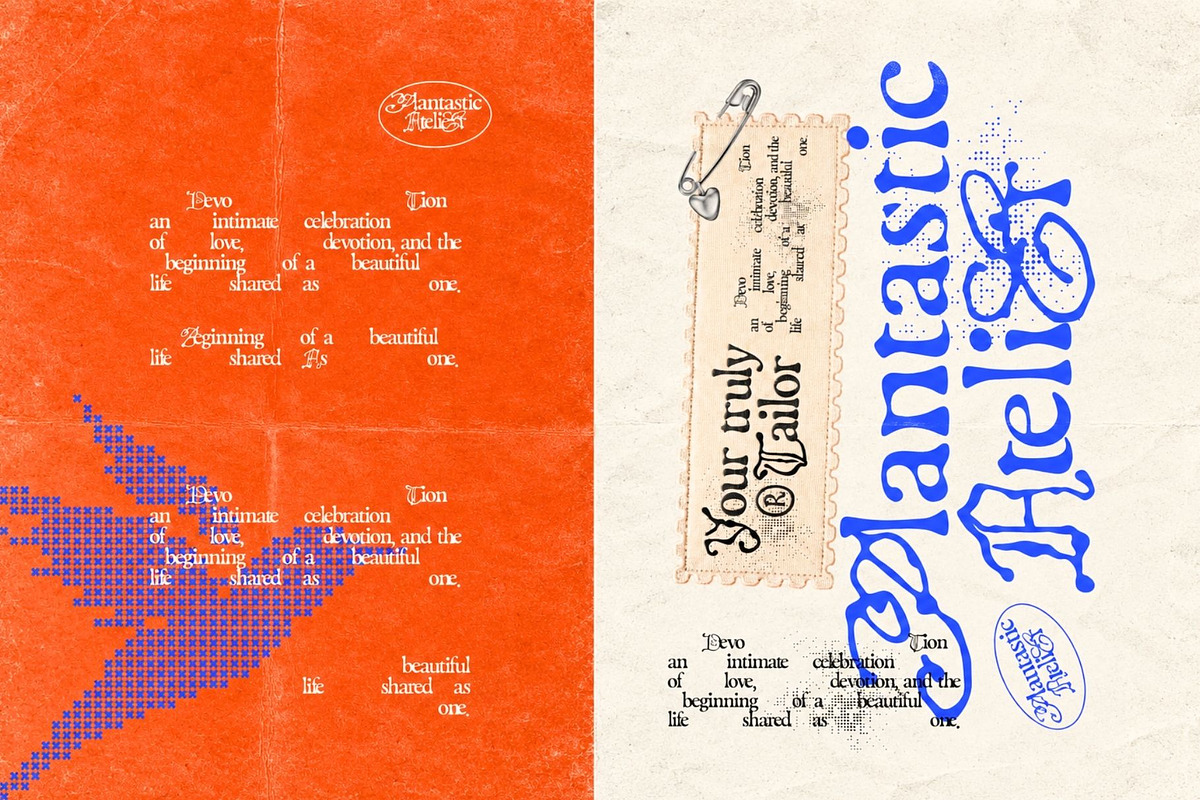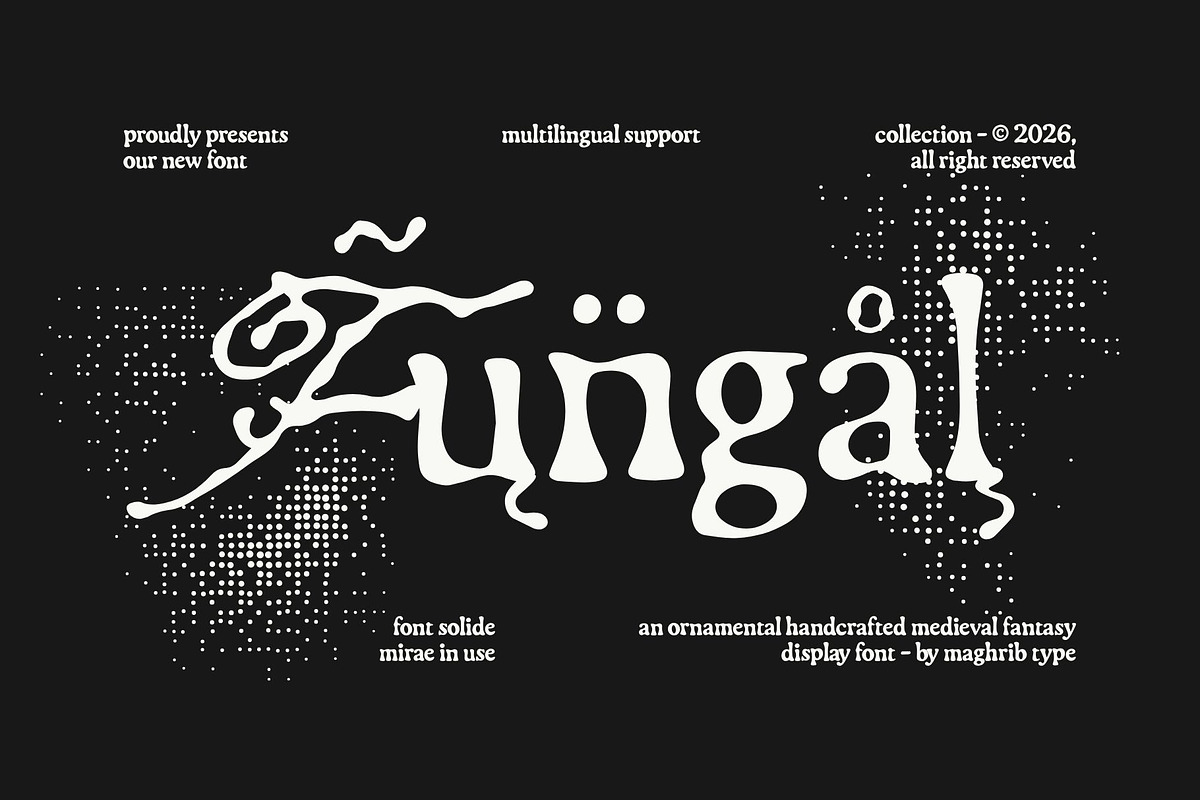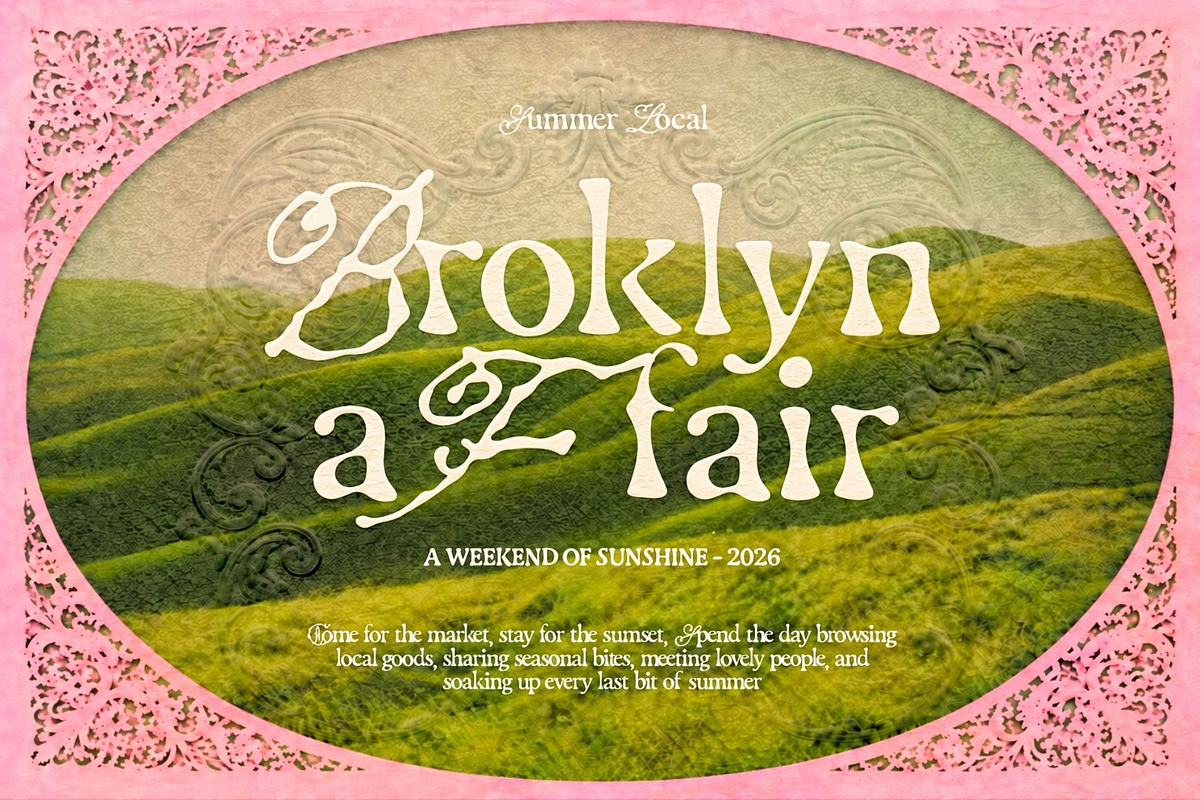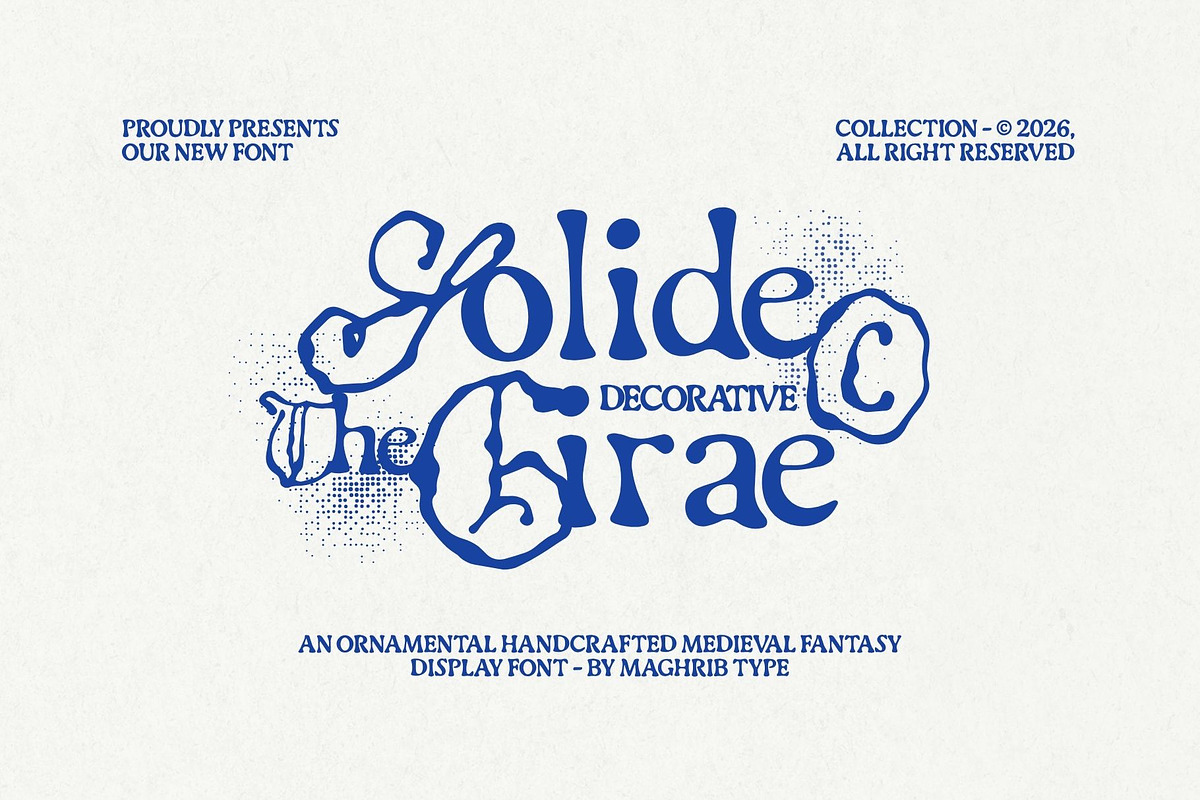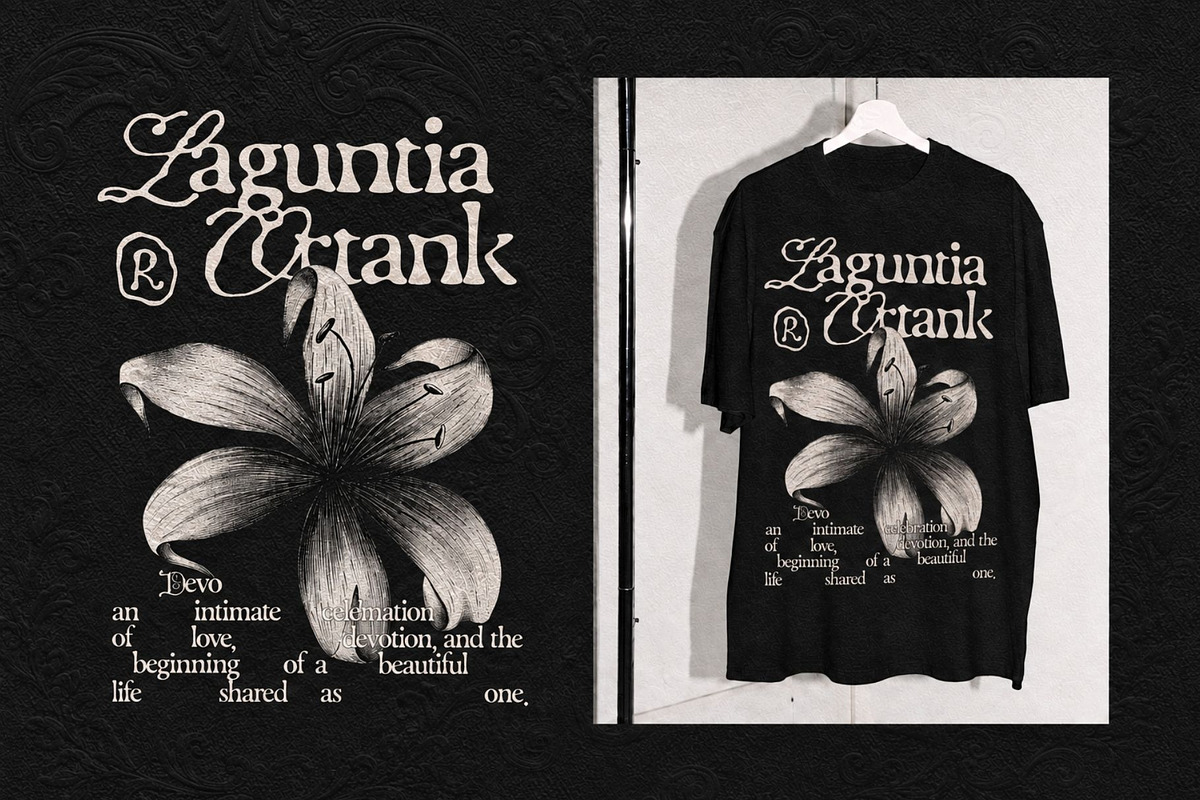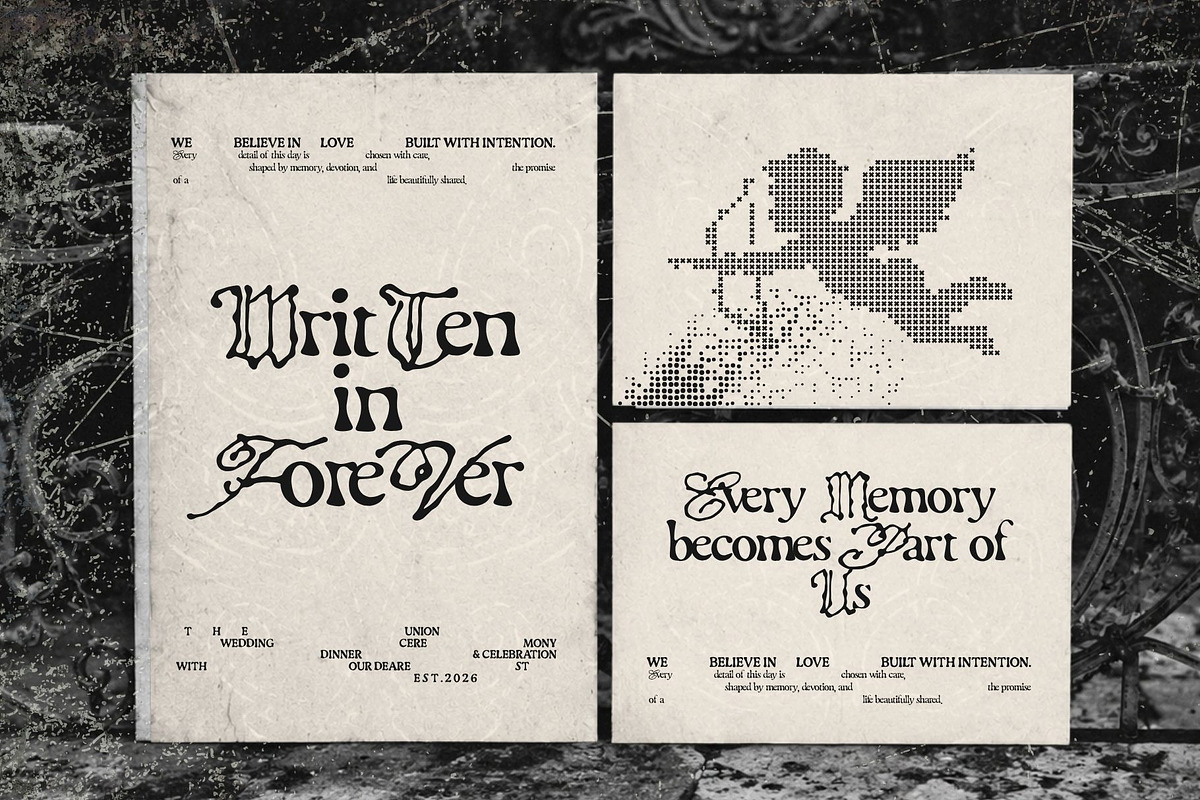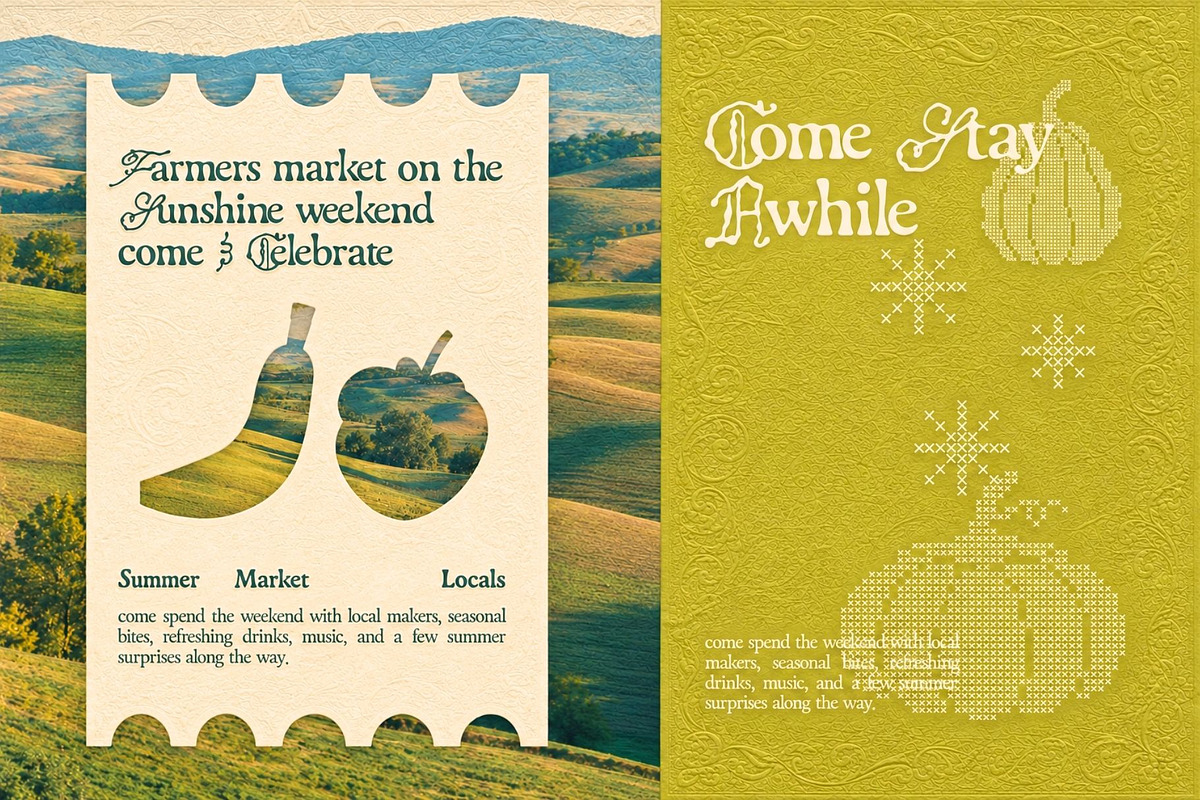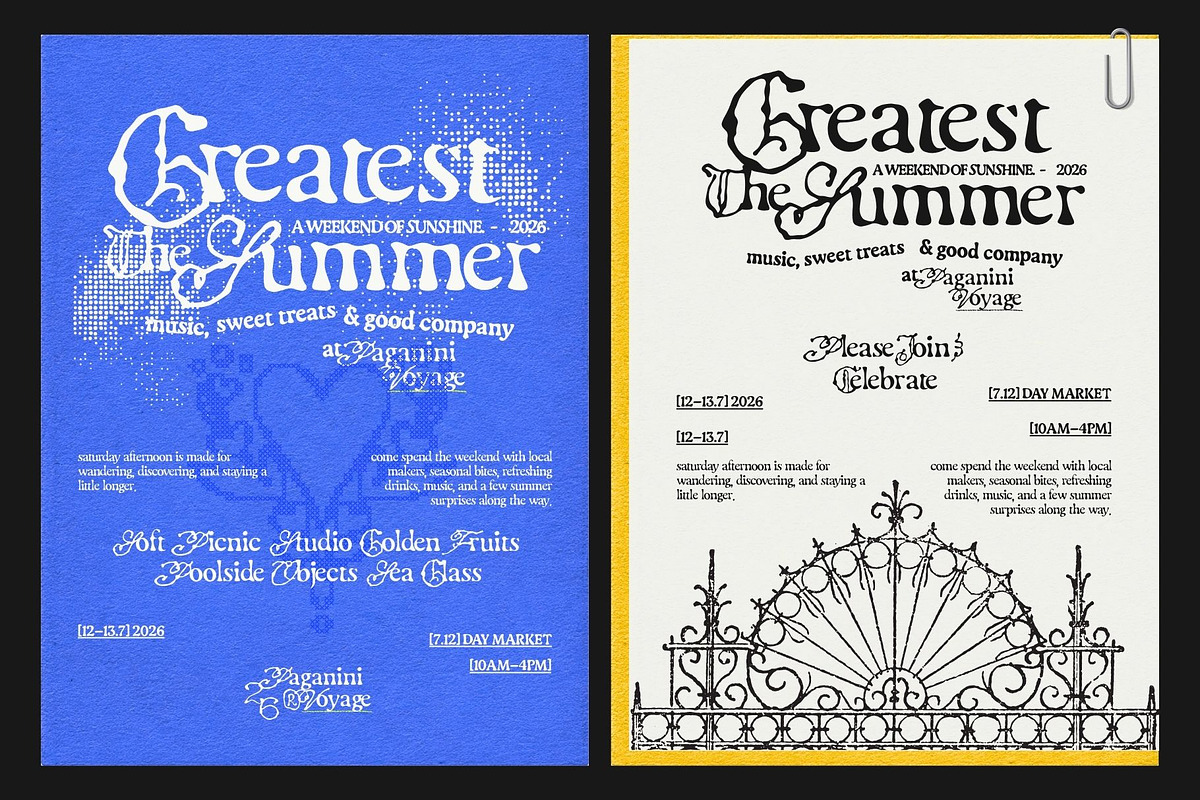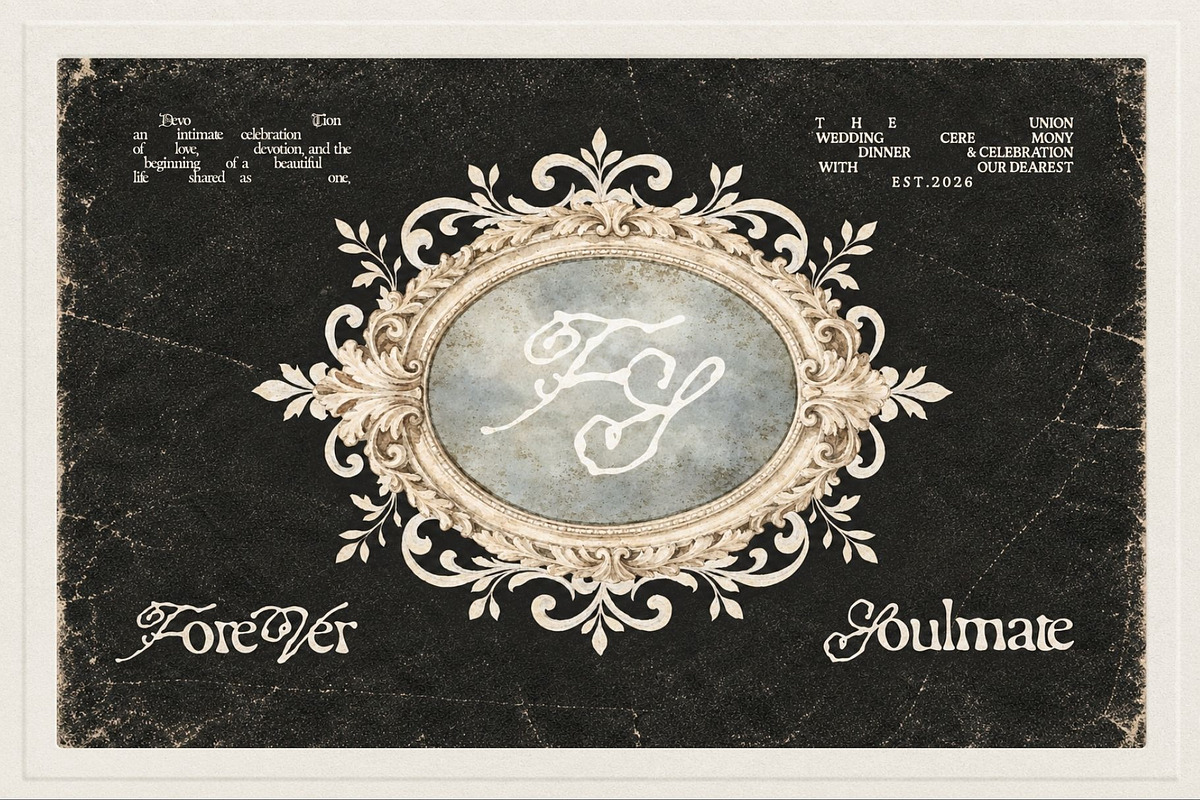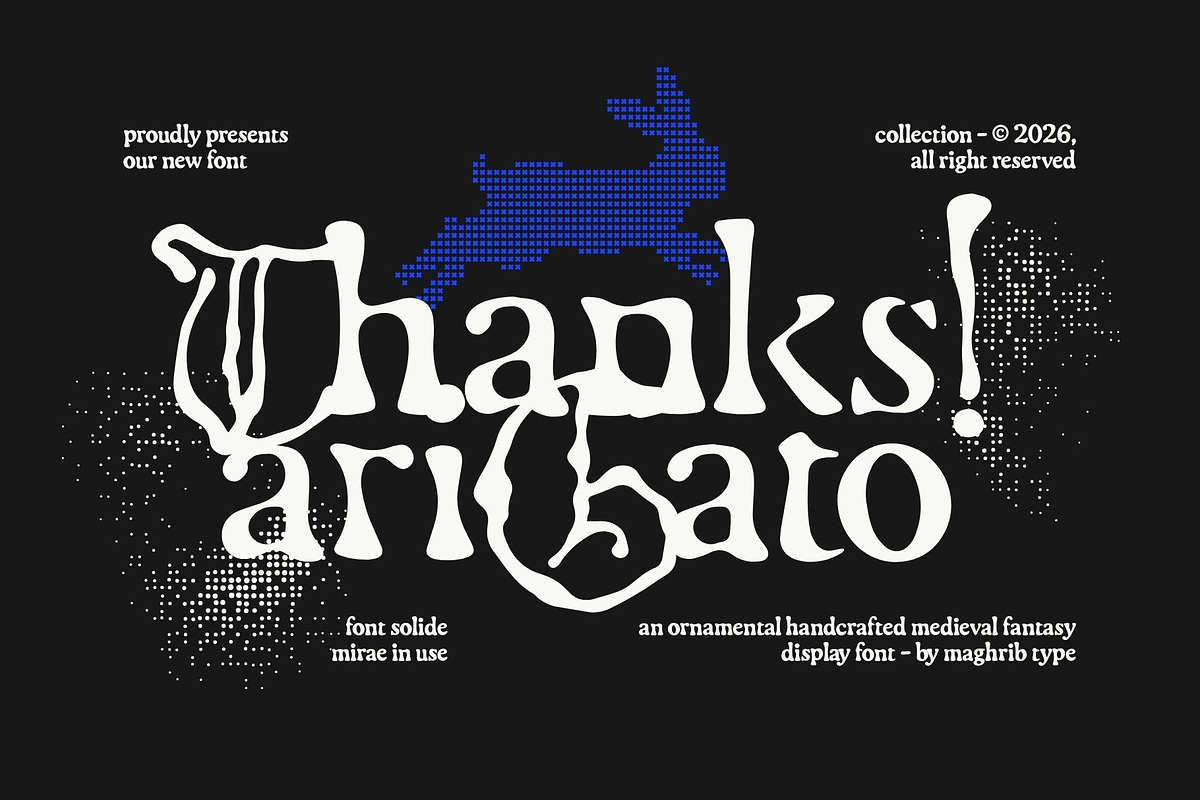
Solide Girae
Solide Girae – Ornamental Handcrafted Medieval Fantasy Display Font
Description
Solide Girae is an ornamental handcrafted display font inspired by medieval fantasy lettering, vintage typography, and expressive decorative forms. Its bold, organic letter shapes combine dramatic curves, unusual proportions, sharp details, and ornamental flourishes to create a distinctive old-world character.
Designed for striking headlines and expressive compositions, Solide Girae works beautifully for fantasy posters, vintage branding, wedding stationery, apparel graphics, album artwork, editorial layouts, packaging, book covers, and atmospheric event designs.
The font has a handcrafted appearance rather than a perfectly geometric construction, giving each word a strong artistic personality. Its decorative forms are especially effective when used at large sizes, while the supporting characters can be combined to create elegant medieval-inspired compositions.
Medieval & fantasy branding
Vintage posters
Wedding invitations
Gothic-inspired designs
Book covers
Album & music artwork
T-shirt & apparel design
Event posters
Packaging
Editorial typography
Logo & identity concepts
Decorative headlines
Solide Girae is made for designers looking to bring an unusual, dramatic, handcrafted medieval atmosphere into their typography.